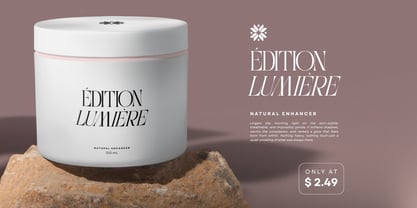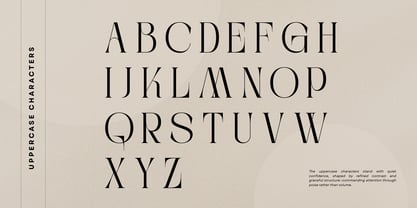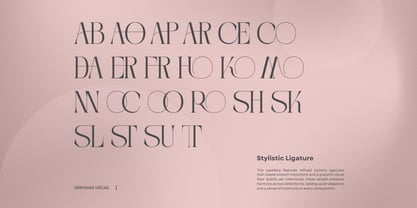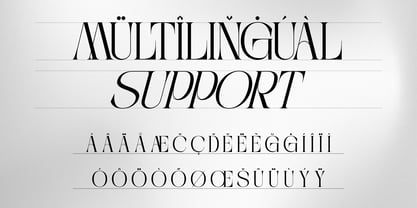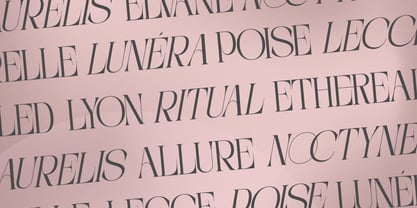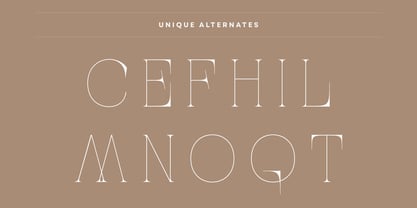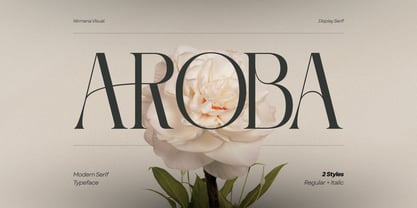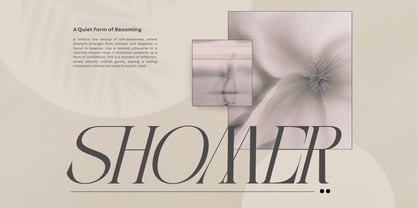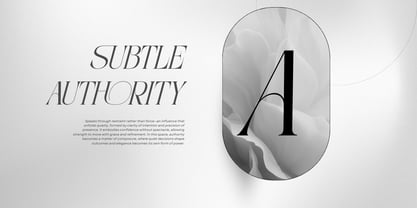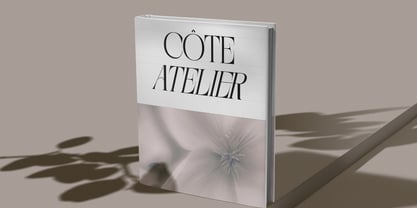
Aroba Modern
von Nirmana Visual
Die Schriftfamilie Aroba Modern wurde von Sigit Dwipa entworfen und von Nirmana Visual veröffentlicht. Aroba Modern enthält 2 Stile und Familienpaketoptionen. Mehr über diese Familie
Aroba Modern is a refined serif display font crafted for bold logo and branding statements. Designed in a strong all-caps style, Aroba delivers a modern yet timeless character that feels confident and premium. Equipped with elegant alternates and smooth ligatures, this font allows designers to create distinctive, custom-looking wordmarks with ease. Available in regular and italic styles, Aroba Modern balances sharp structure with subtle sophistication—perfect for branding, headlines, editorial titles, fashion logos, and visual identities that demand clarity, style, and high-impact presence.
Designer: Sigit Dwipa
Aktuelle Foundry: Nirmana Visual